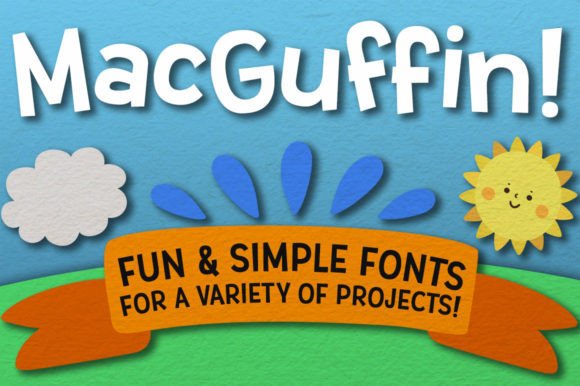
Discover the Best Fonts For Kids collection with the Macguffin Font family, designed by GeekMissy. If you are looking for a font that is simple, clean, and fun, MacGuffin is the perfect choice for you. With its crisp, sharp, and smooth edges, this display font is ideal for crafting projects, logos, signs, and anything else you can think of!
When you download the Macguffin Font family, you get four fantastic fonts in both OTF and TTF file formats. The Macguffin, Macguffin Condensed, and Macguffin Wide fonts all have over 500 characters, including tons of extended options for Latin languages. Plus, we've also created MacGuffin Jumble, a pre-jumbled font with fun and quirky angles for an added touch of playfulness.
Not only do these fonts look great, but they also feature uppercase A-Z, lowercase a-z, standard punctuation, and accented characters for language support, including 400+ in Regular, Condensed, and Wide, and Latin-1 Supplement characters in Jumble. And with all fonts fully PUA-encoded, accessing glyphs has never been easier.
Whether you're designing invitations for your child's birthday party, creating a playful logo for a new business, or just looking to add a touch of fun to your crafting projects, the Macguffin Font family is the perfect choice for you. Download now and see for yourself why Macguffin is one of the Best Fonts For Kids on the market!